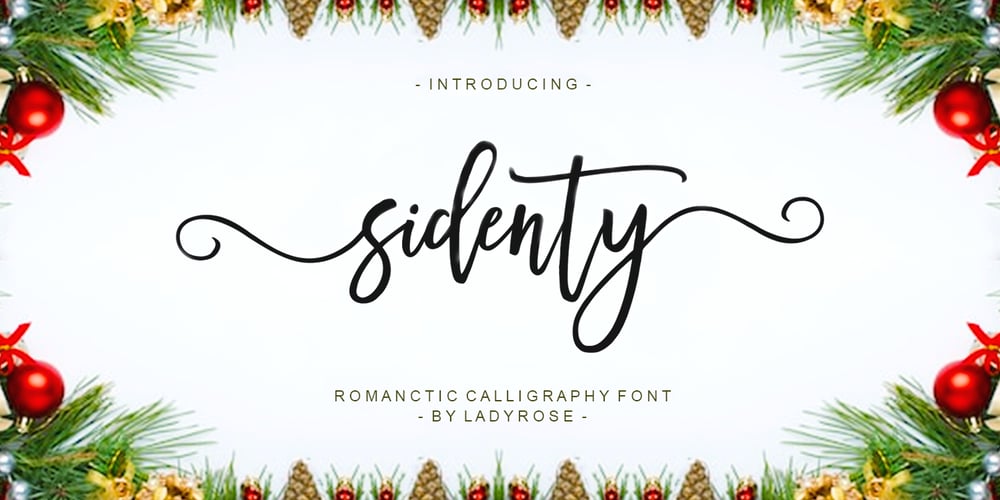
Sidenty Font Family was designed by Rosa Linda and published by Lady Rose. Sidenty contains 2 styles and family package options. Sidenty is a wild calligraphy script. The typeface was drawn and created by Lady Rose between 2020 and 2021. Its open shapes are inspired by mid-century advertising, is full of life and emits liberty and optimism. The handwritten family consists of two weights: It is completed with a full alternate alphabet and a big set of ligatures, which together give the handwriting genuine dynamics and a natural flow.It has extensive lingual support, covering all European Latin scripts and contains all characters you’ll ever need, including all punctuation and numbers.